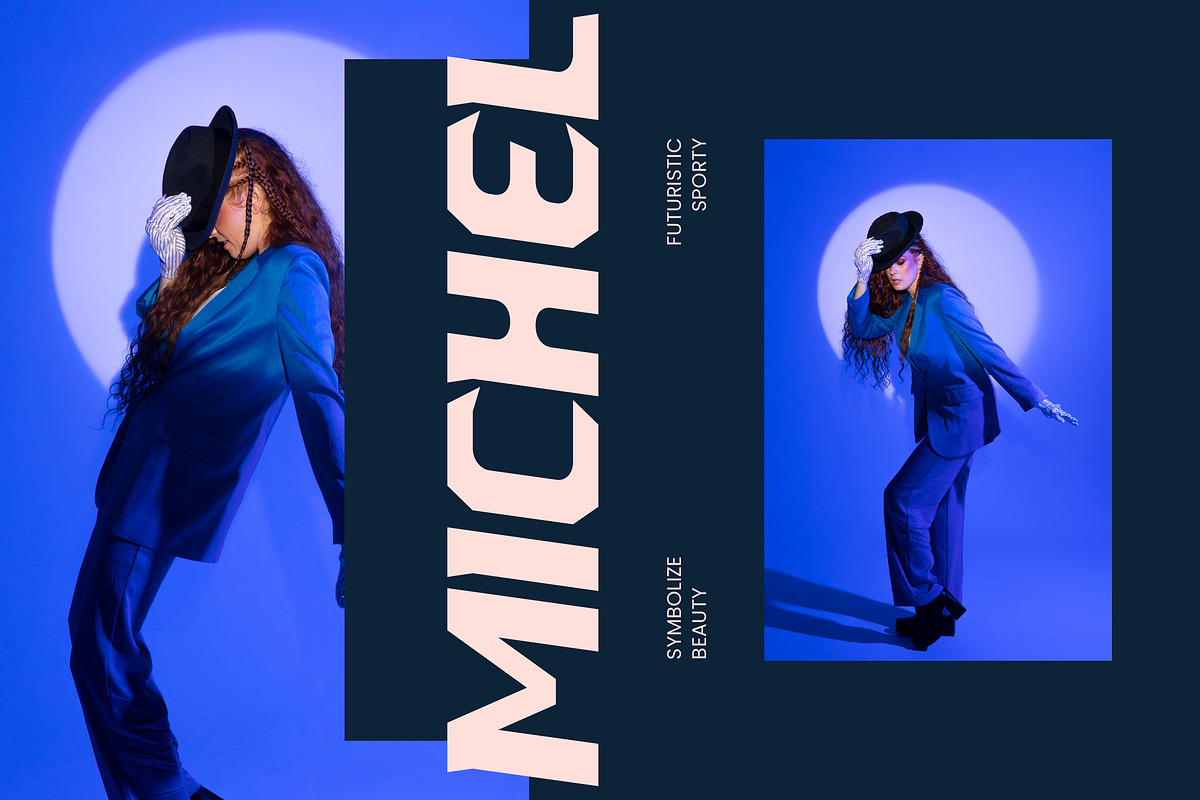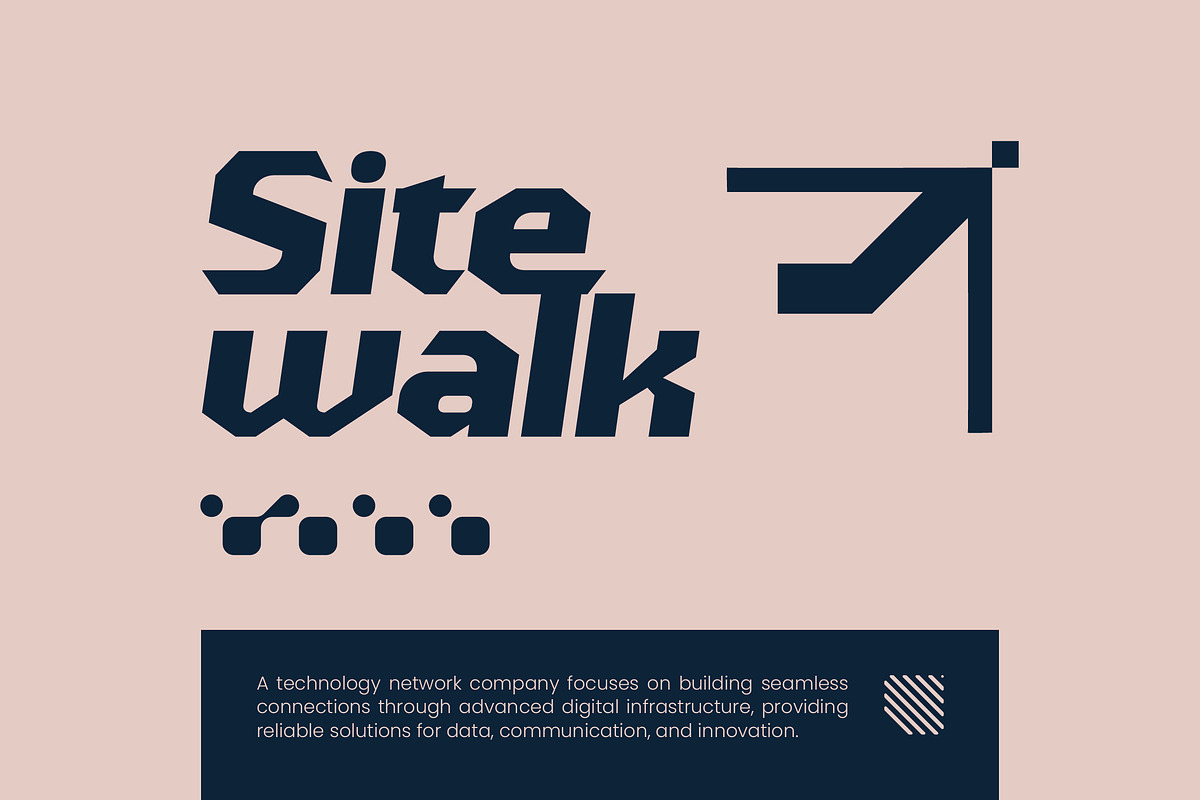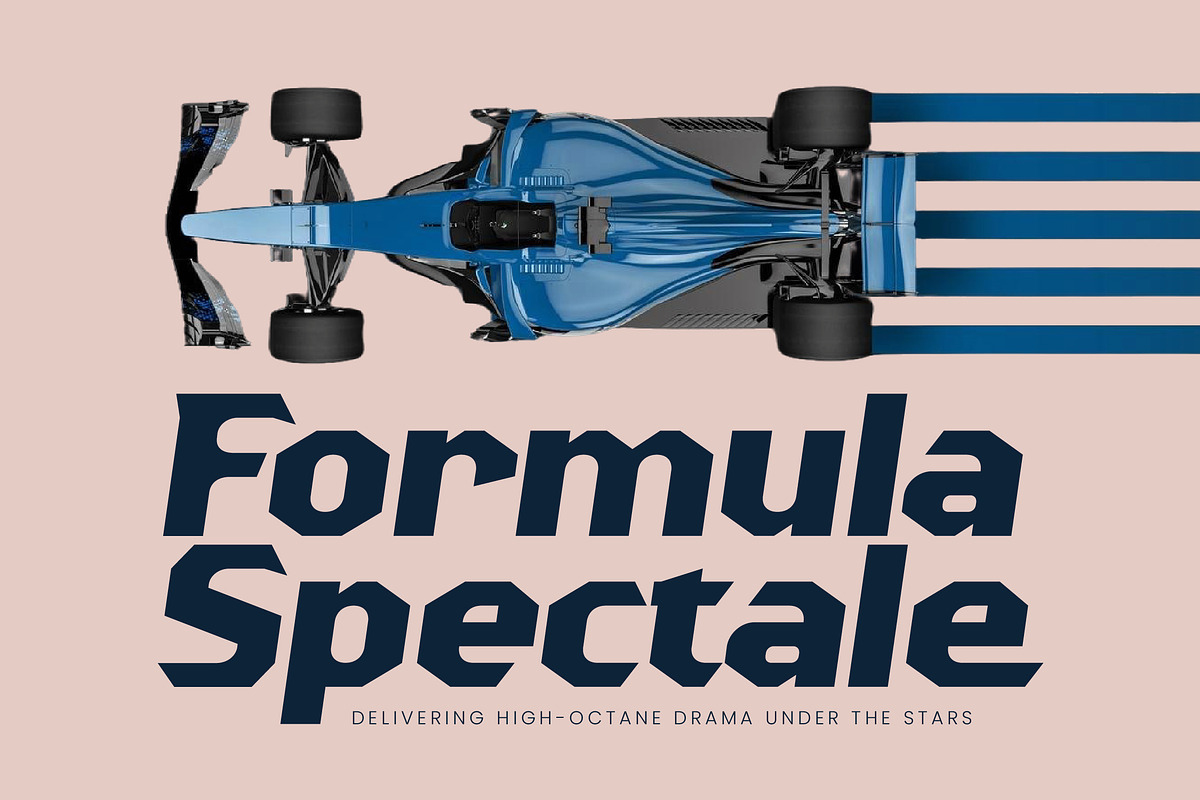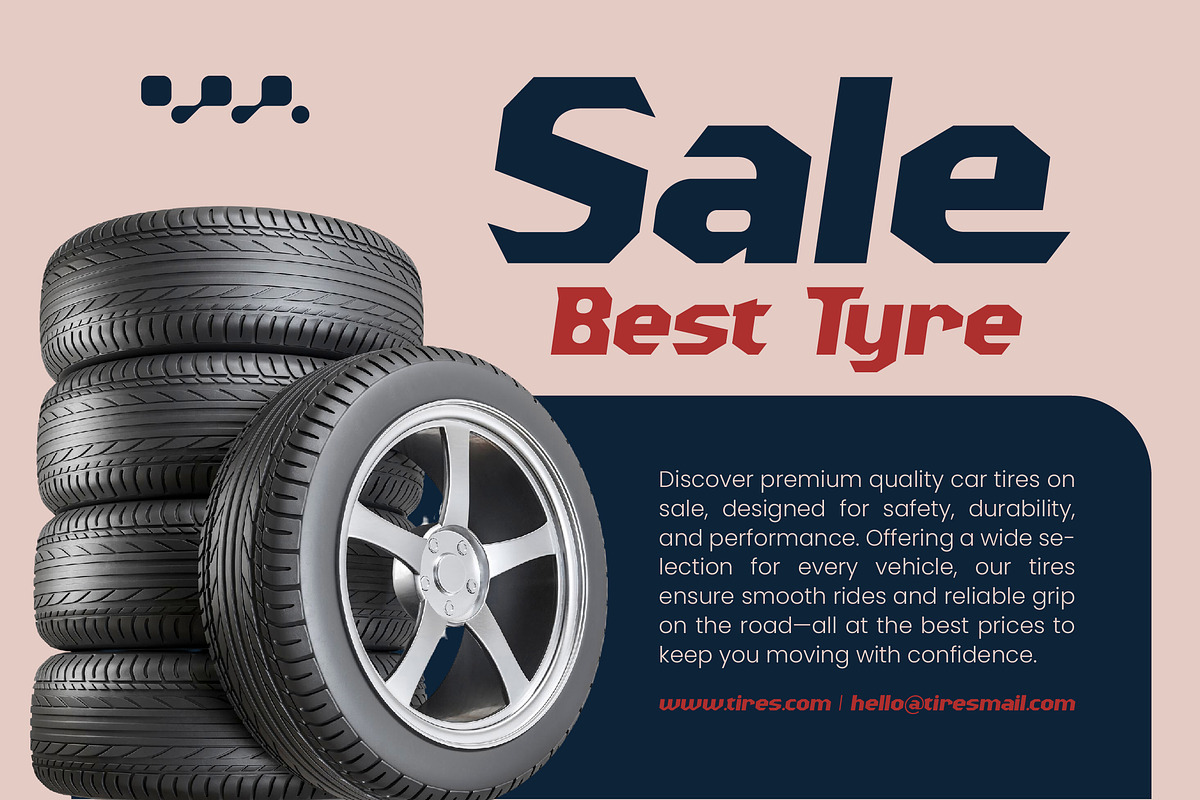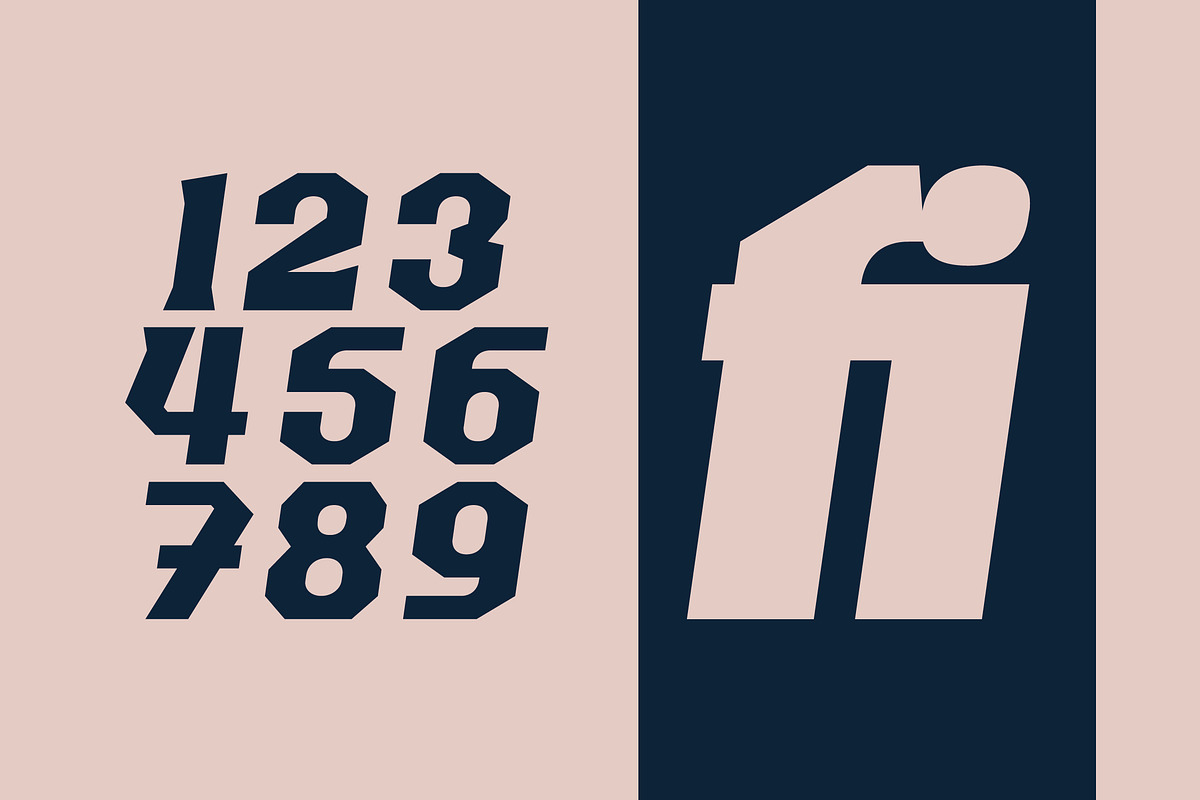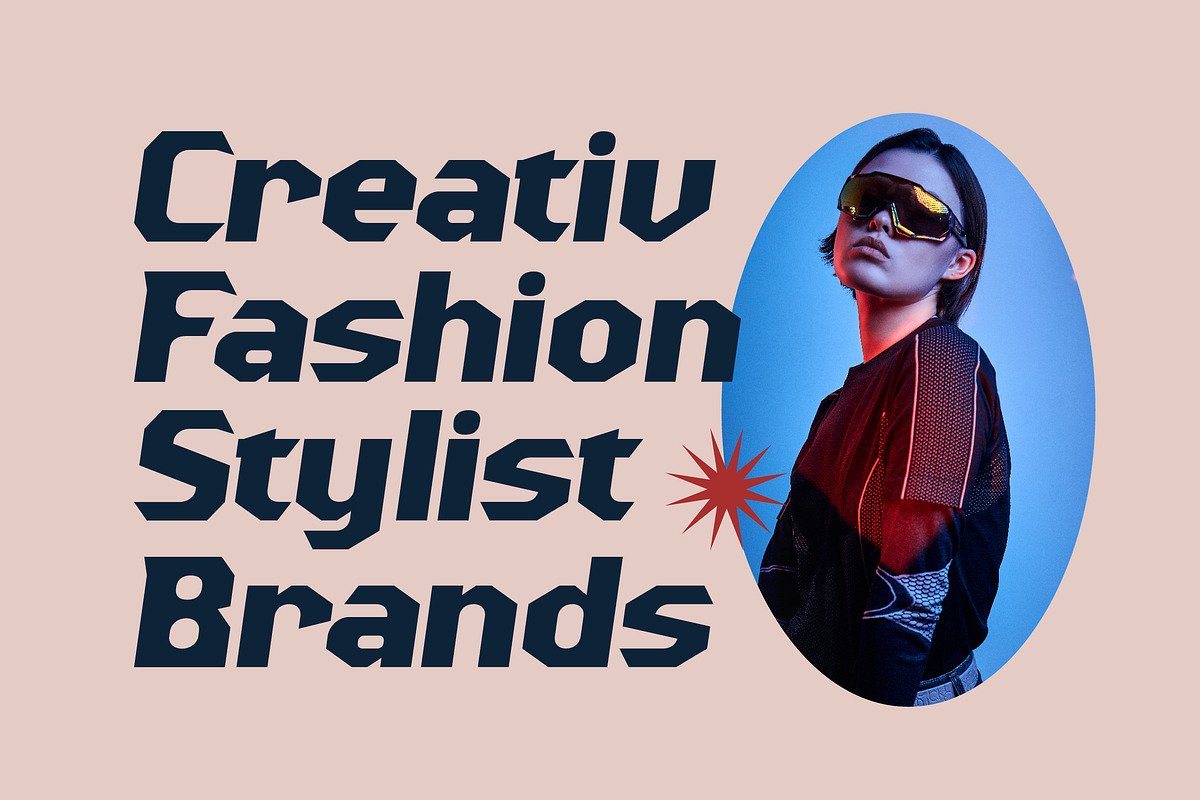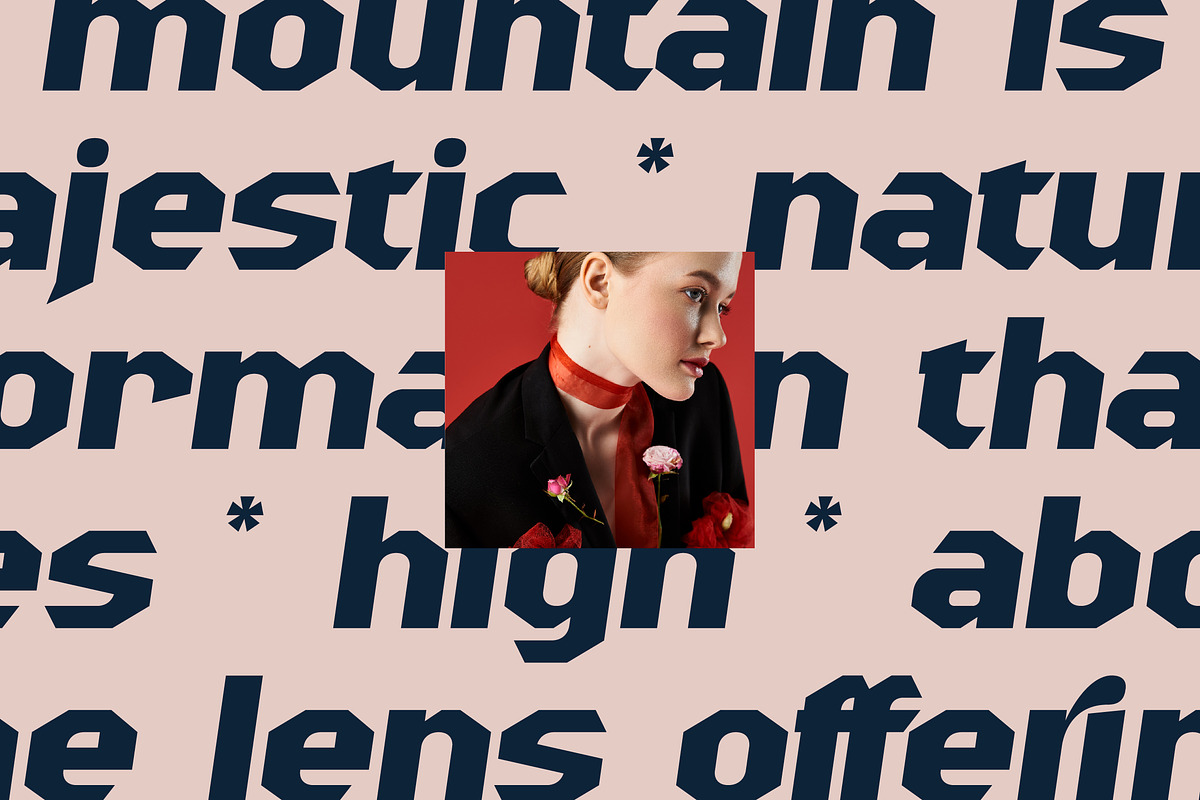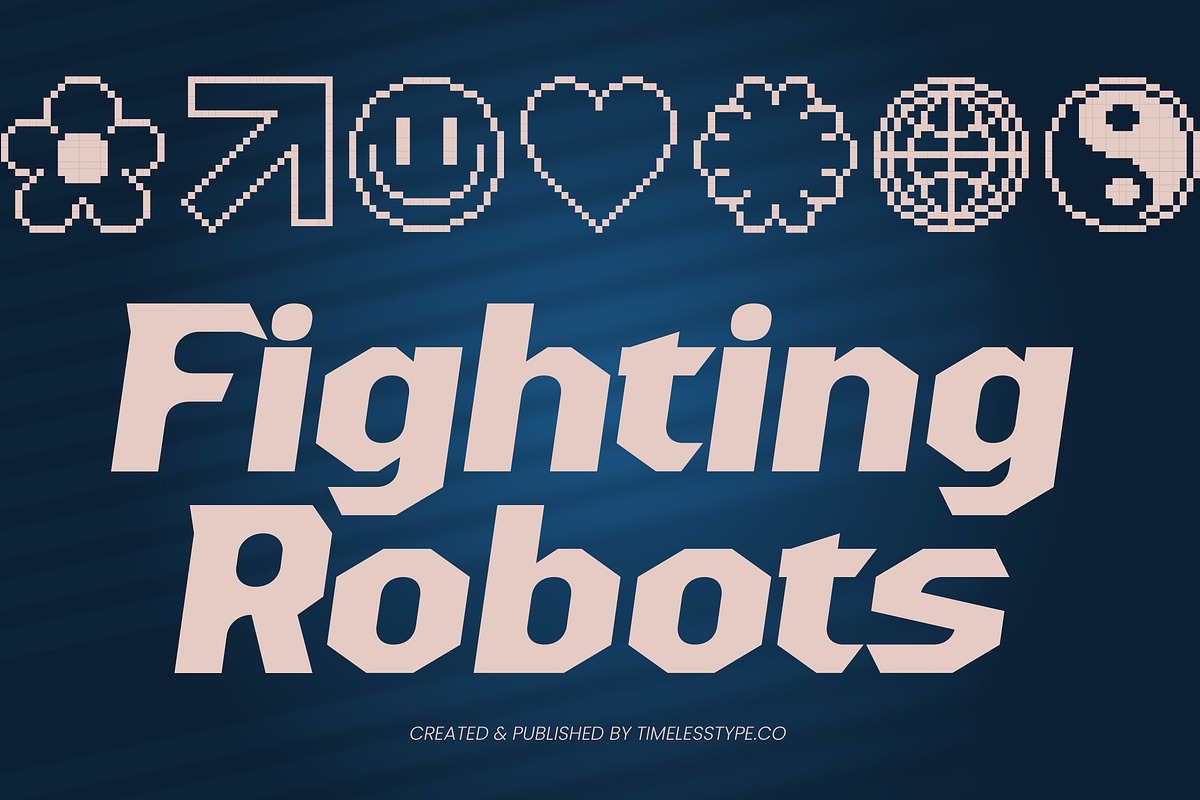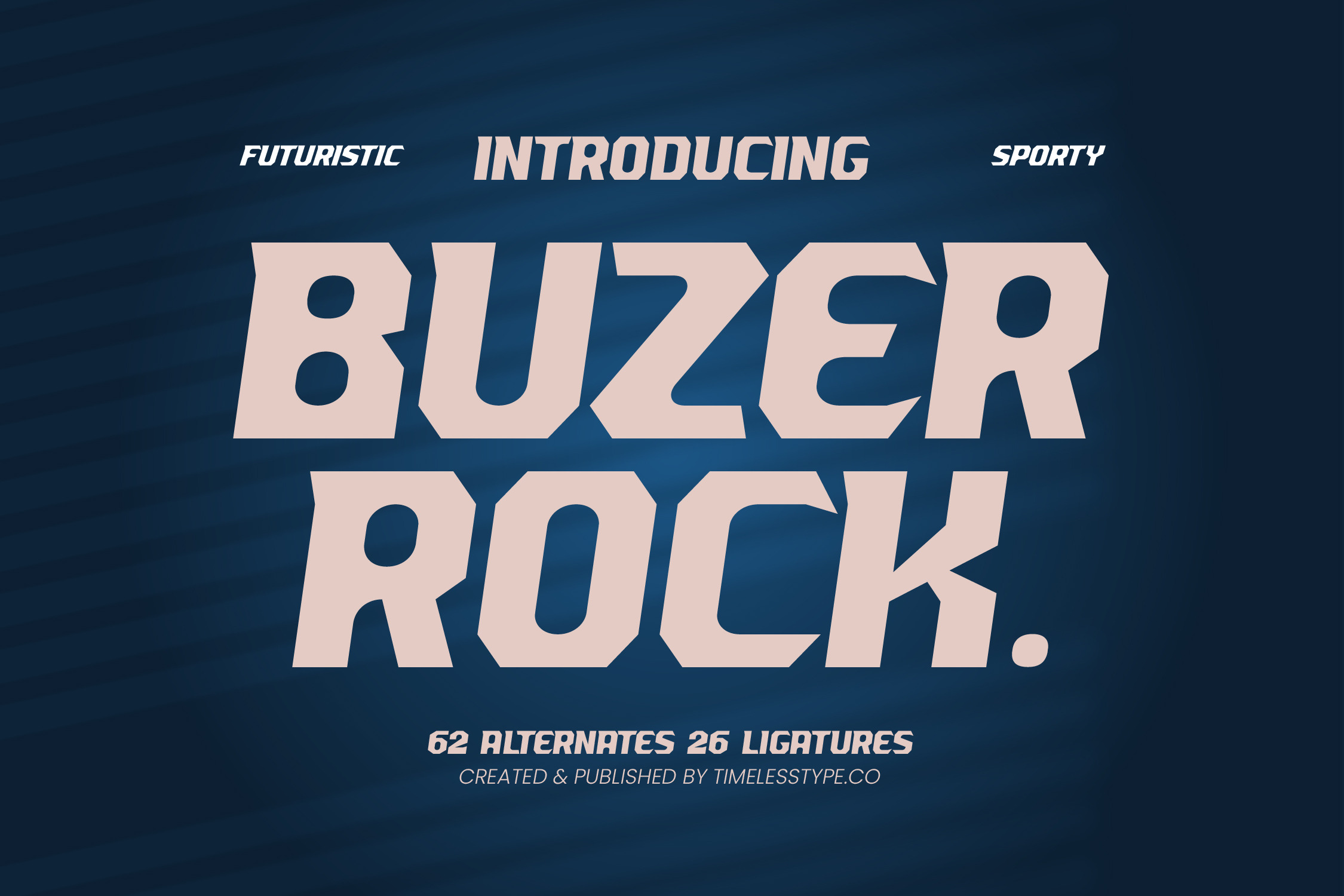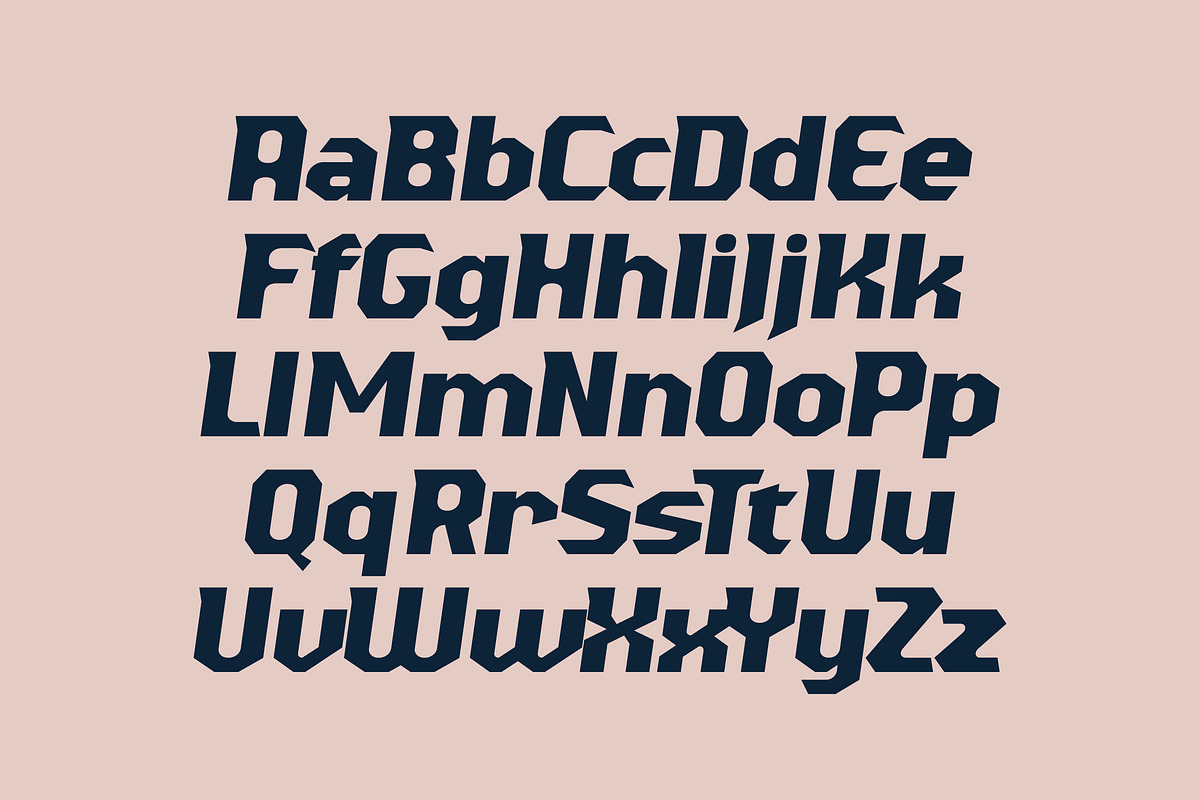
Buzer Rock Futuristic Sport Font
Buzer Rock is a high-octane powerhouse designed to inject speed and futuristic energy into every layout it touches. This is more than just a typeface; it is a visual statement for brands that demand a bold and aggressive presence.
Taking cues from the sleek lines of aerospace engineering and the grit of professional athletic branding, this font captures a sense of relentless momentum. Its sharp angles and wide stance are inspired by the digital interfaces of tomorrow.
As a futuristic display solution, it offers unmatched sporty typography and a bold sans-serif aesthetic that functions as a high-performance editorial font for maximum branding impact. The heavy weights provide a solid foundation for any high-visibility project.
Staying ahead of the modern display trend, this family stands out among other sporty display fonts by utilizing unique character-driven typography that feels both custom and professional. It is the perfect answer for the current shift towards tech-focused and athletic visual identities.
This font excels in logo design, corporate branding, and high-impact editorial spreads, while also being perfectly suited for packaging, avant-garde fashion, and even high-tech wedding stationery. Its versatility makes it a go-to choice for designers working in the tech and sports industries.
The package is loaded with 62 alternates and 26 ligatures to ensure your headers look unique, and it includes full multilingual support with over 200 international characters for a truly global reach.